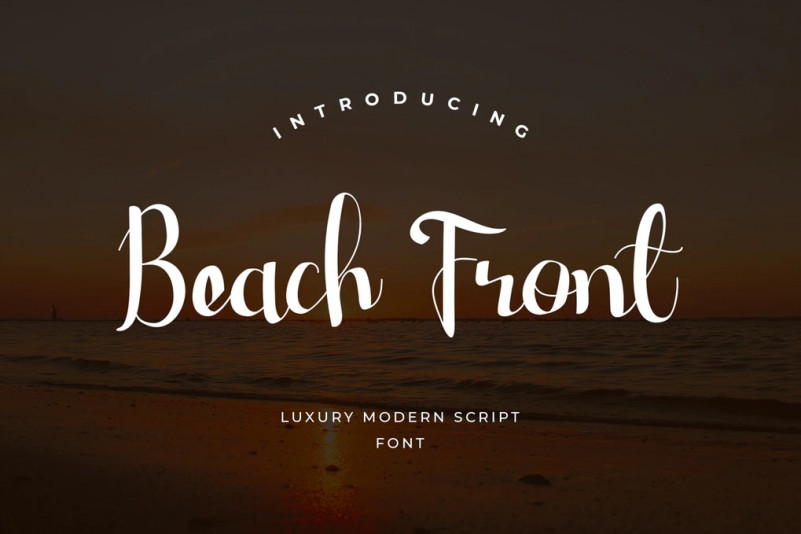
Beach Front Font
Beach Front is a perfect script handwritten for branding projects, logo, wedding designs, social media posts, advertisements, product packaging, product designs, label, photography, watermark, invitation, stationery and any projects that need handwriting taste.